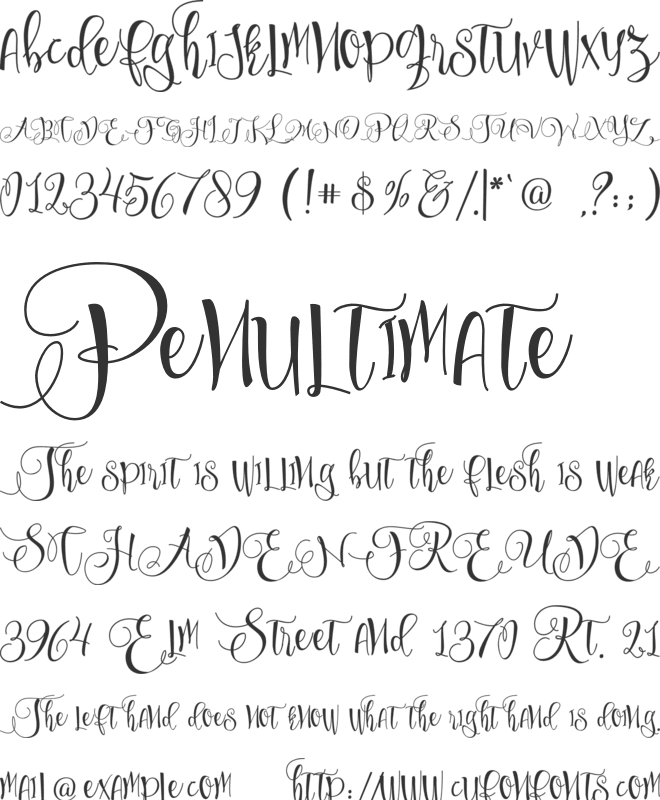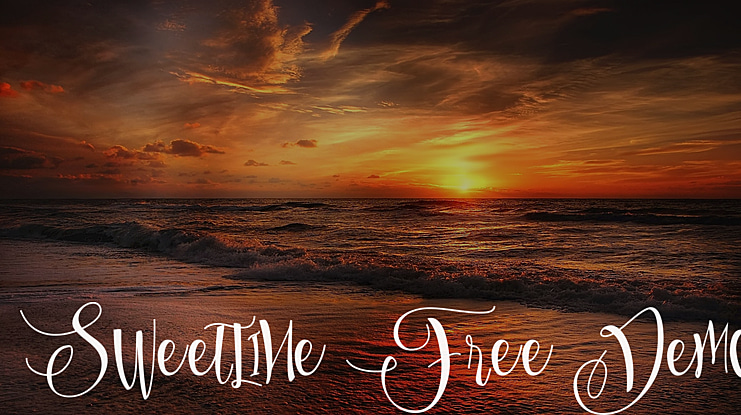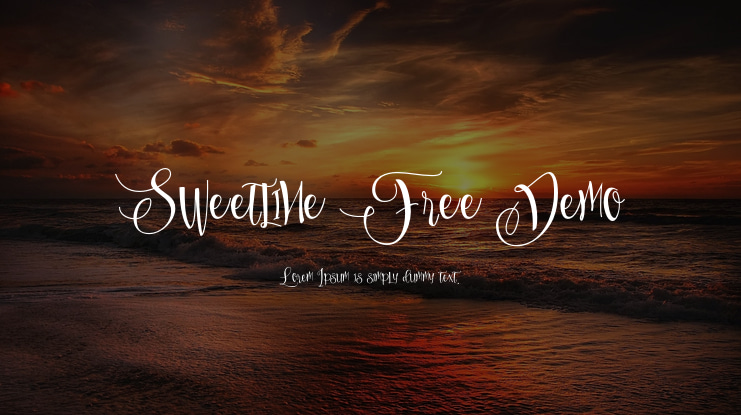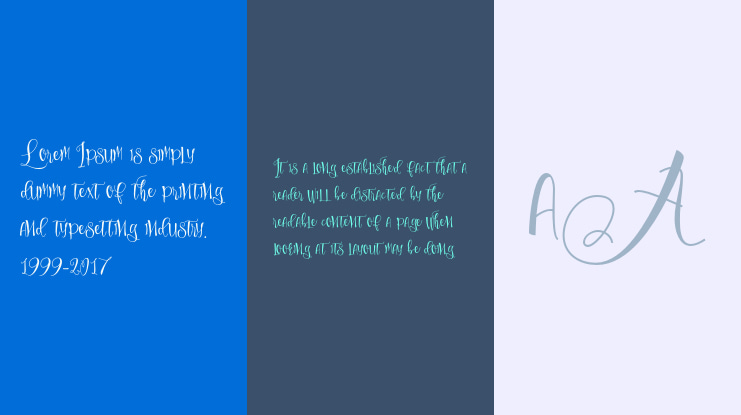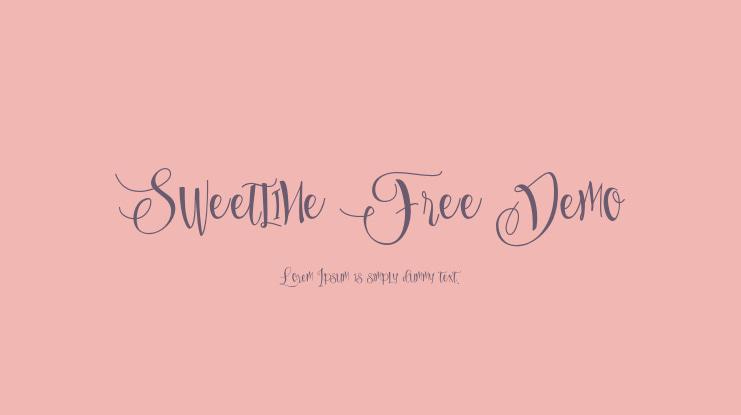
Sweetline Free Demo Font
Sweetline Typeface, is a calligraphy wavy, modern and clasik, perfect for your next design, such as logos, printed quotes, invitations, cards, product packaging, headers and anything else about your imagination.